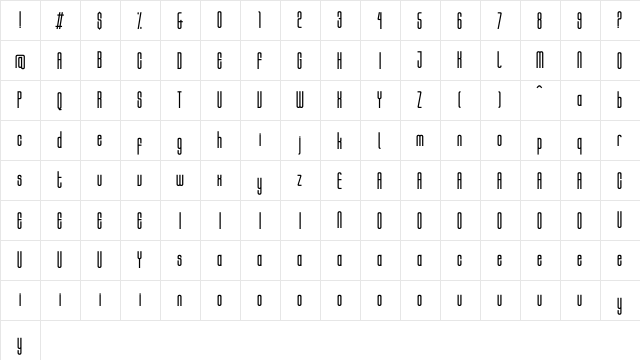
Hocus Regular Regular
Design Context for Hocus Regular Typeface
Hocus Regular takes a measured approach to typography — its balanced proportions and neutral character make it a reliable workhorse for both digital and print work.